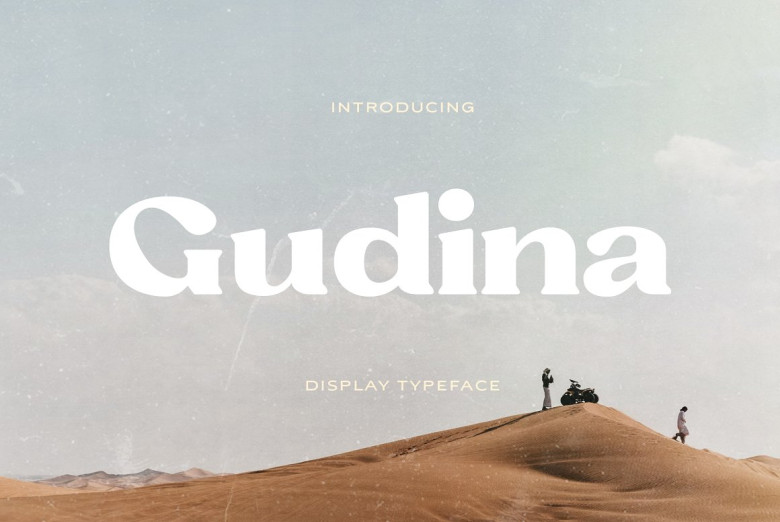
Gudina Font
Gudina is a unique serif font. Whether large or small, it at once endows any product with an air of sophistication. It It is a typeface of power, turning what is ordinary into art No fiddling with complicated accents and details, just creative your layout through varying font sizes and presto! a remarkable design is born.
Gudina Serif Font